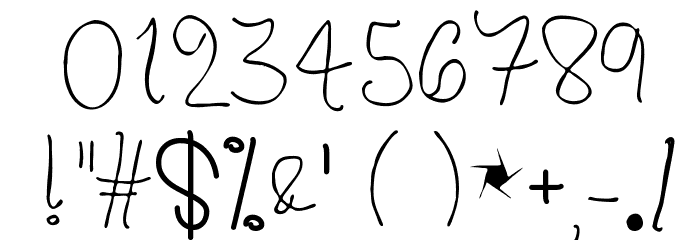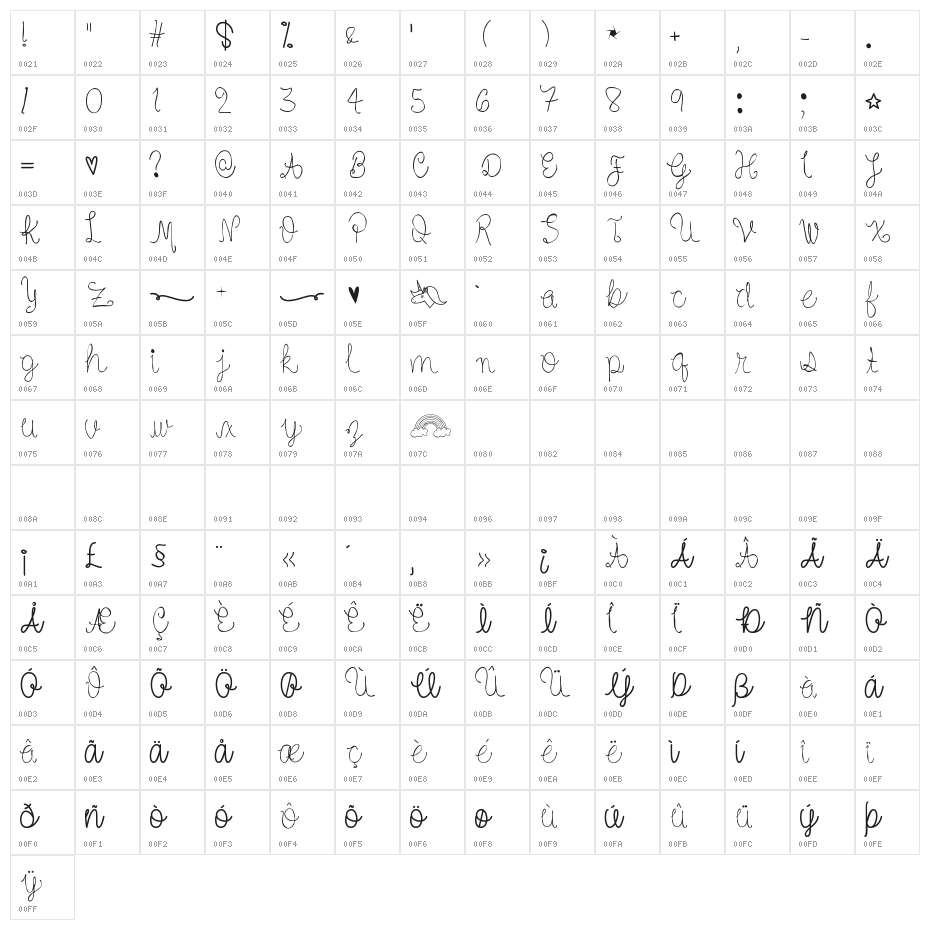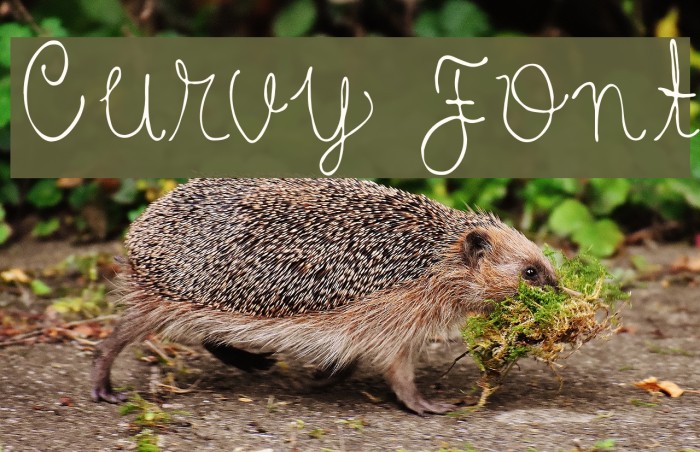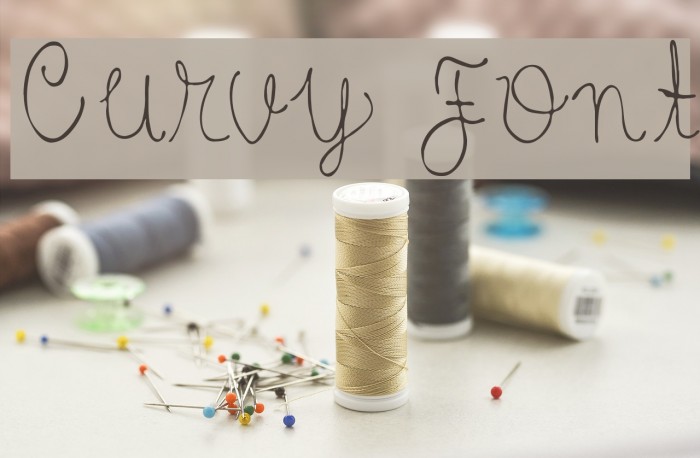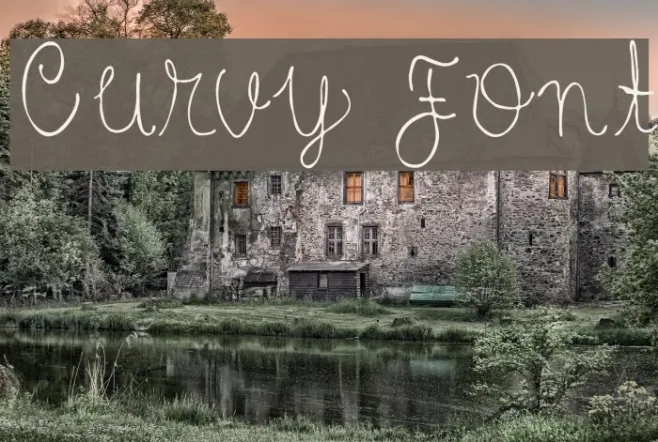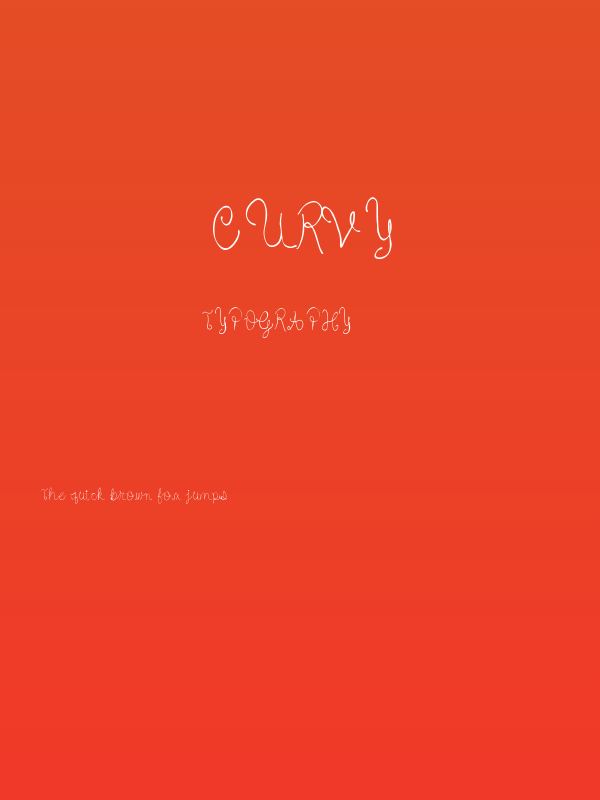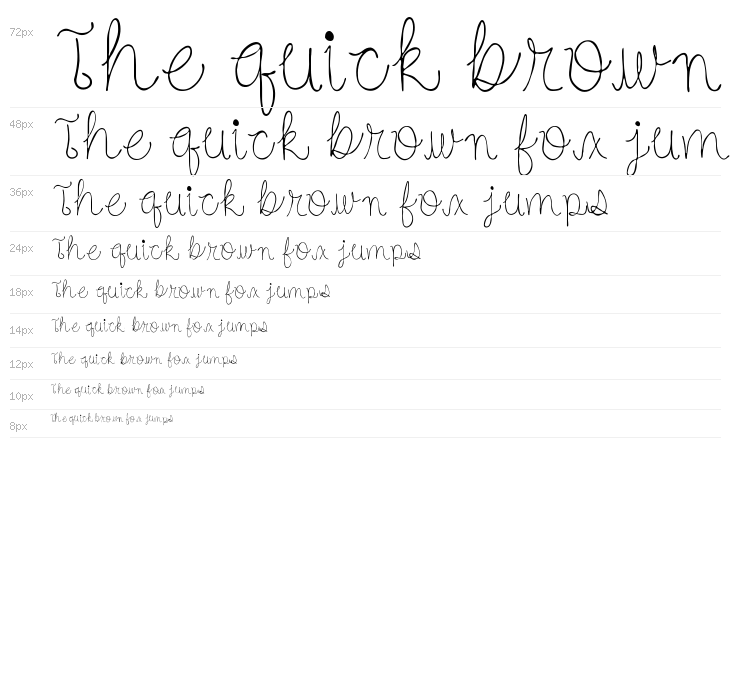
Curvy Font
Curvy Description
This font features a whimsical and playful script style, characterized by its curvy and flowing letterforms. Each character is uniquely crafted with a sense of movement, creating a lively and dynamic appearance. The uppercase letters are bold and expressive, while the lowercase letters maintain a consistent fluidity, enhancing the overall aesthetic. The numerals and special characters follow the same playful design, adding to the font's cohesive look. Its hand-drawn quality gives it a personal and artistic touch, making it suitable for creative projects.